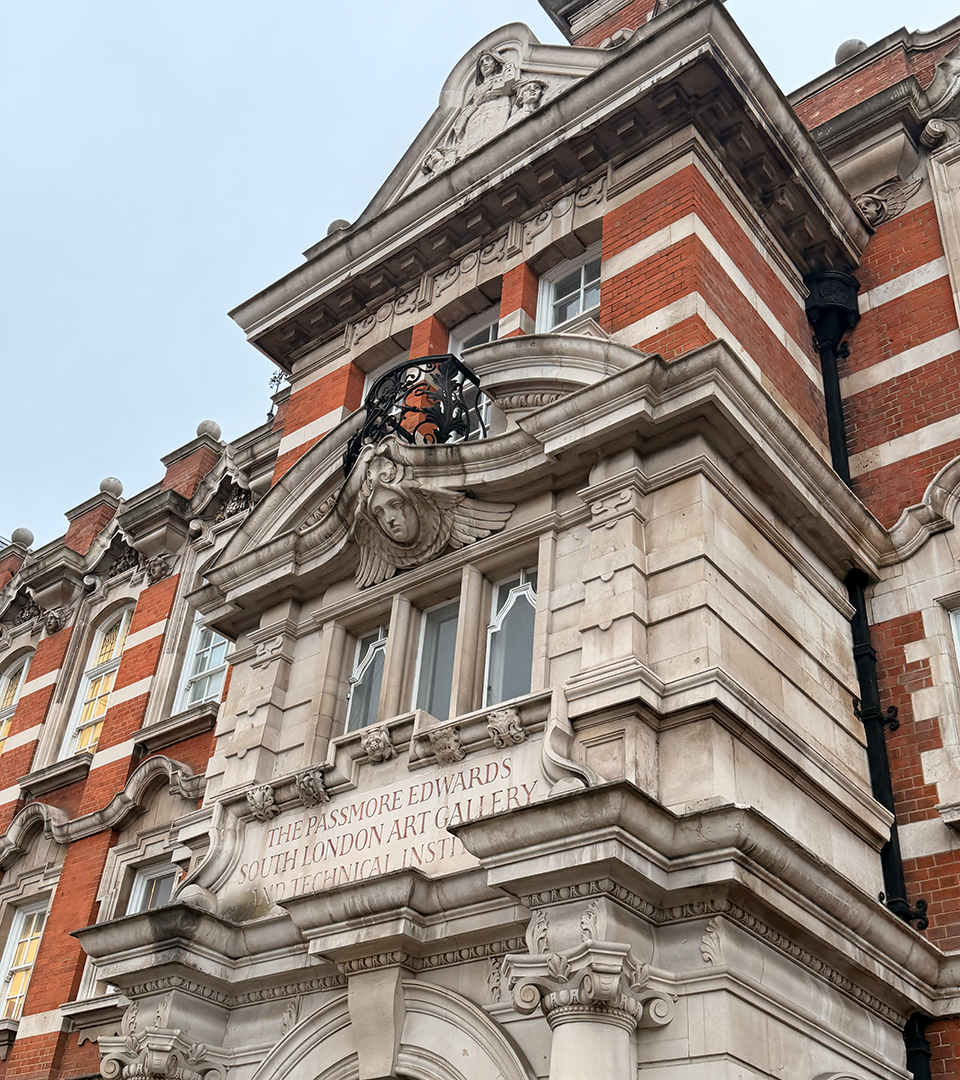
The 'Arcus' design is inspired by the architecture of the South London Gallery. As the gallery is a traditional Victorian building that exclusively exhibits contemporary art, the design blends traditional and modern elements through the use of arches and irregular shapes. My aim is to create a typeface that reflects both the traditional and contemporary character of the South London Gallery. The concept behind the design is that the letters are mainly formed from straight and curved lines that create arch like structures. I hope this typeface will be used in any kind of artical or any literature.